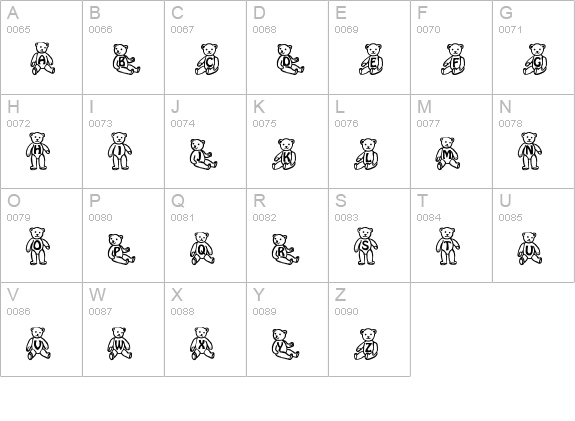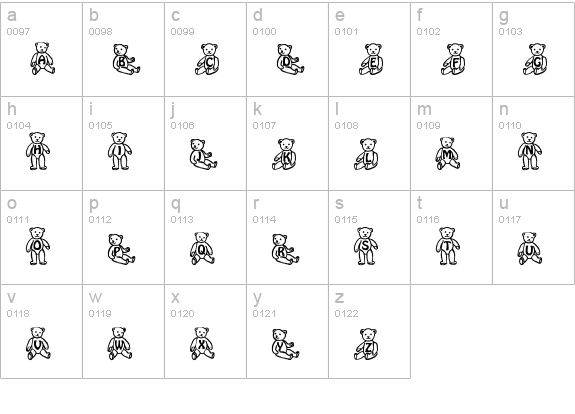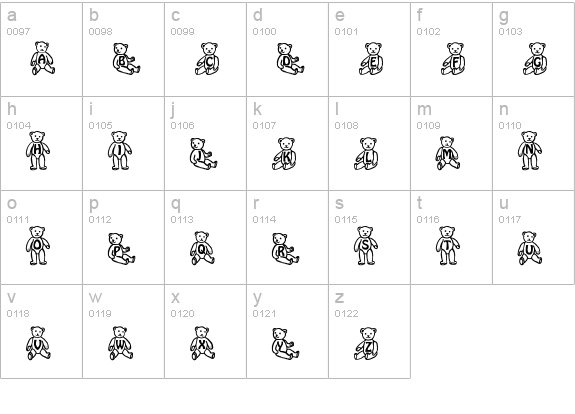
Sassys Teddys 1 Font Details
Introducing Sassys Teddys 1, a delightful and charming font that is sure to bring a touch of whimsy to your designs. This font is perfect for adding a playful and fun element to your projects, whether you're designing invitations, crafting personalized gifts, or creating eye-catching social media graphics. Sassys Teddys 1 features a unique combination of curvy and bold letterforms, creating a harmonious balance between elegance and playfulness. Each letter is meticulously crafted to capture the essence of a teddy bear's cuddly charm, making it a truly delightful choice for any creative project. But what sets Sassys Teddys 1 apart is that it is not only visually appealing, but also freely available to download at FontsMarket.com. Yes, you read that right - this font can be yours at no cost! With this generous offer, you can add Sassys Teddys 1 to your font collection without breaking the bank. Whether you're a professional designer or a hobbyist, having access to high-quality fonts can make all the difference in your creative endeavors. And with Sassys Teddys 1, you can now enhance your designs with a font that is both visually stunning and freely accessible. So why wait? Head over to FontsMarket.com and download Sassys Teddys 1 today. Let your creativity soar as you explore the endless possibilities this delightful font has to offer. Whether you're designing for personal or commercial use, Sassys Teddys 1 is a font that will surely add a touch of whimsy and charm to your projects.